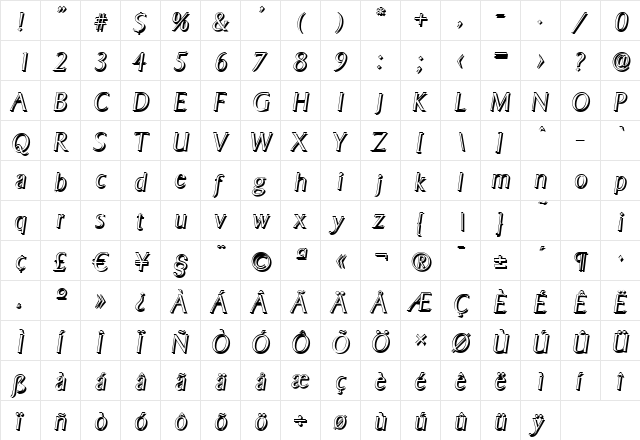
BruceBeckerShadow-Xlight Italic Font Preview
Design Context for BruceBeckerShadow-Xlight Typeface
BruceBeckerShadow-Xlight brings ornamental detail and strong personality to headlines and identities, where visual impact matters more than quiet functionality. The slanted form adds forward momentum and visual energy. Its slender proportions lend an understated elegance to any composition.
Font Pairing: Pair with a clean neutral sans-serif for body copy to let BruceBeckerShadow-Xlight's character lead without overwhelming the composition.
Pro Tip: Use BruceBeckerShadow-Xlight exclusively at display sizes — it was designed to be seen, not read at length. Let a neutral companion handle body copy.